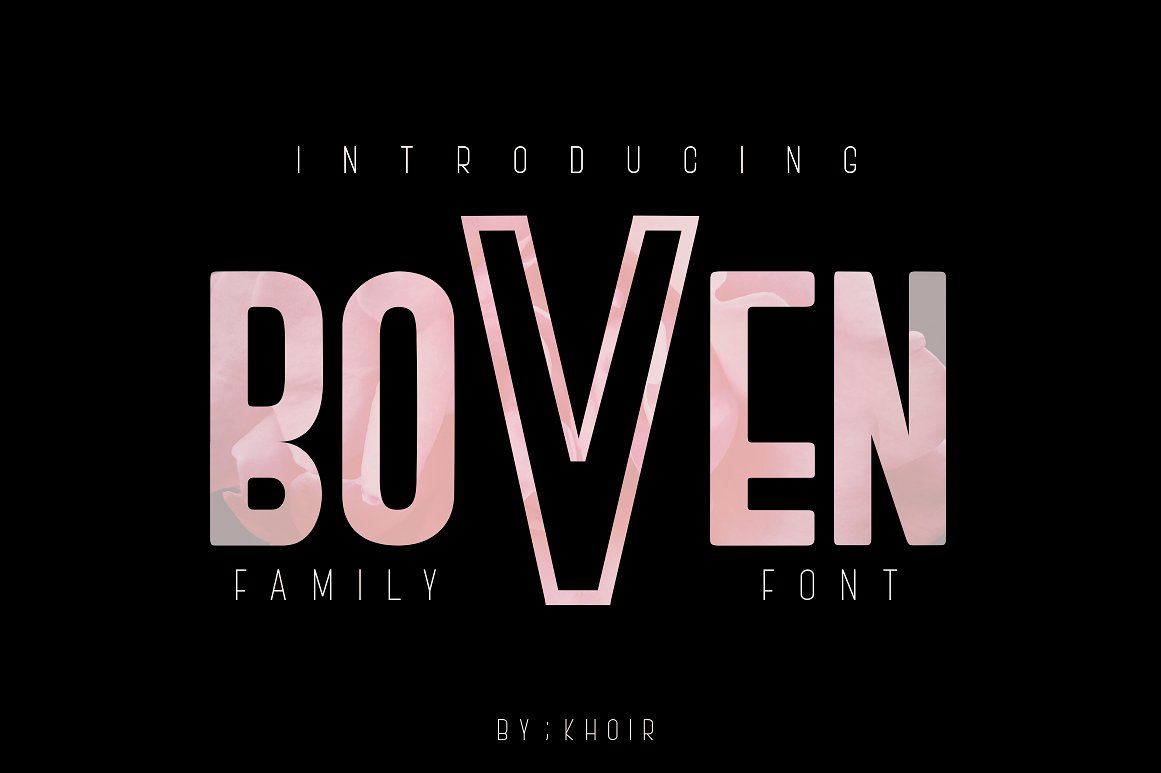
BOVEN
BOVEN Font Family
Introducing the modern BOVEN font without serif, BOVEN is a modern made-up masculine font with various fonts available in it a minimalist and strong touch makes it look more elegant. BOVEN looks elegant and masculine make it suitable in use for anything and anywhere, such as poster display, book cover, packaging, cover film, greeting cards, logos, and more